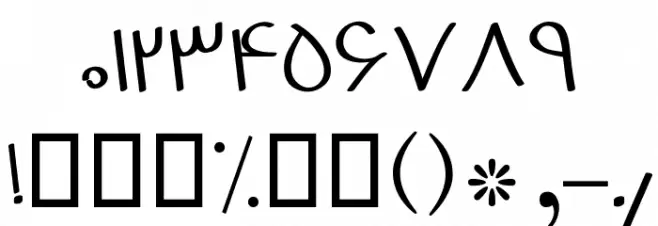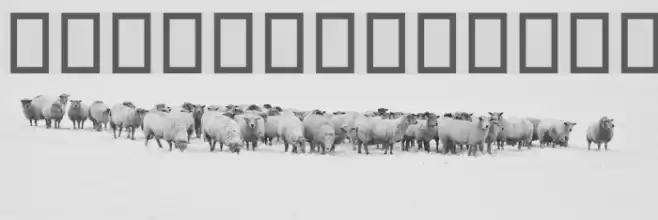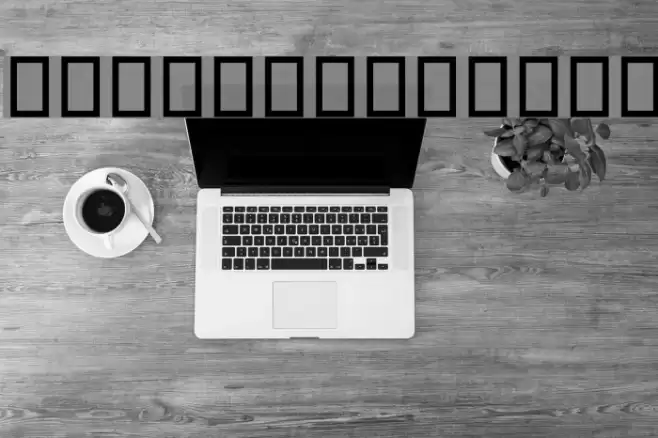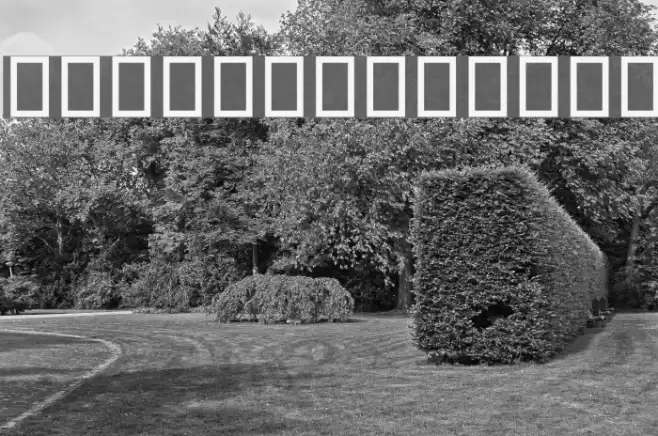
Paarsaa Font
Paarsaa Description
This font features a unique and artistic style, characterized by its flowing and dynamic curves. The letters exhibit a playful yet sophisticated appearance, with a slight slant that adds a sense of movement and elegance. The numbers and special characters maintain this fluidity, ensuring consistency throughout the typeface. The overall design is modern and expressive, making it suitable for creative projects that require a touch of personality and flair.
| Use Case | Logos, Headlines, Creative projects |
| Proposed Projects | Ideal for branding, artistic posters, creative invitations, and modern web design. |